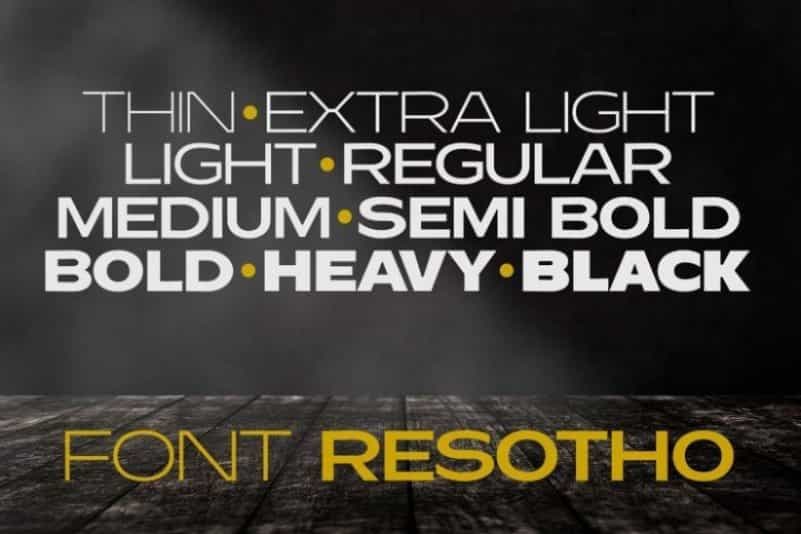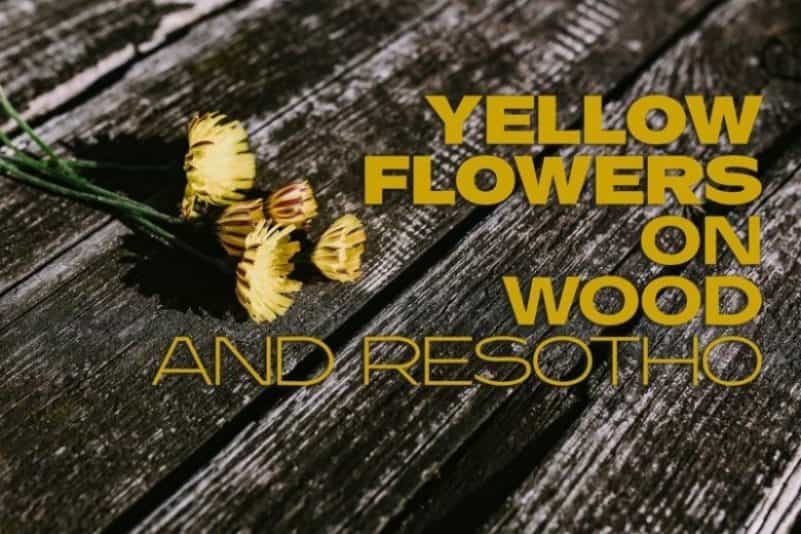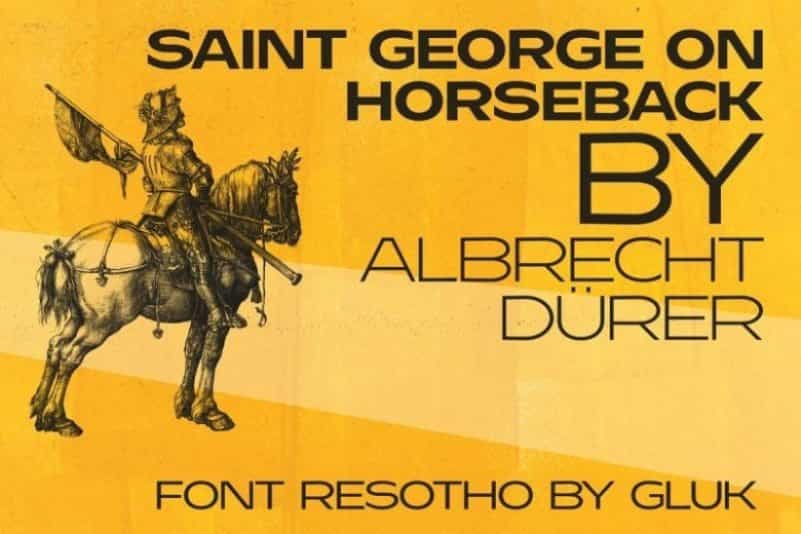
Resotho Extralight is an original sans-serif style font family . Resotho Extralight Font is legible with a clear, authoritative style innovative, environmentally friendly and sustainable companies. Resotho Extralight has a sleek elegant, clean appearance. It has simple, smooth curves and a contemporary look.